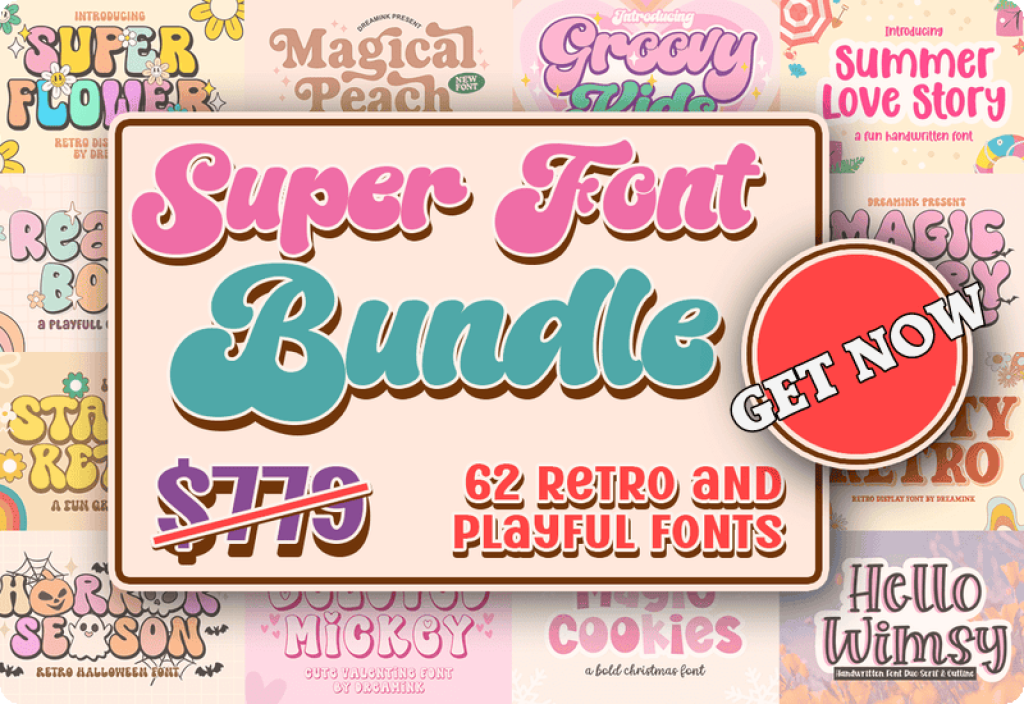
Introducing the Super Retro & Playful Font Bundle
Typography plays a vital role in every design project, adding character and style to your creations. The Super Retro & Playful Font Bundle by Dreamink (7ntypes) offers the perfect collection to infuse fun and creativity into any design. Valued at $779, this bundle is now available for free, and it includes a commercial license for versatile use in various projects. From t-shirts and mugs to book covers and greeting cards, this dynamic set of 62 fonts is your go-to resource for all things groovy and retro.
A Diverse Collection of Fonts
Vibrant Display Fonts
This bundle is packed with vibrant display fonts, perfect for making bold statements in your design work. These fonts will capture attention and convey your message with clarity and style.
- Super Flower Display Font: Ideal for floral-themed projects, this font adds a whimsical touch to designs.
- Horror Season Display Font: Perfect for spooky or Halloween-themed projects, creating an eerie yet playful vibe.
- Sunshine Notes Display Font: Brighten up any project with this cheerful font, great for uplifting messages and designs.
Retro and Groovy Styles
Take a trip back in time with fonts that exude retro flair. These fonts are ideal for nostalgic designs and projects that aim to evoke a sense of the past.
- Mashville Serif Font: Offers a classic serif style with a modern twist, suitable for headlines and titles.
- Trusty Retro Display Font: Perfect for vintage posters or retro-themed events, adding authenticity to your designs.
- Standy Retro Display Font: Evokes a retro feel, great for projects that aim to capture the essence of the ’70s and ’80s.
Fun and Playful Elements
Fonts that add a playful touch to your designs can make all the difference. This bundle includes a variety of options that are sure to make your projects stand out with personality and charm.
- Lovely Bougenville Script & Handwritten Font: Brings elegance and playfulness to invitations and personalized items.
- Groovy Kids Display Font: Perfect for children’s projects, adding fun and excitement to any design.
- Magic Cookies Display Font: Use this delightful font to add a sprinkle of magic to your designs.
High-Quality Craftsmanship by Dreamink (7ntypes)
Crafted by Dreamink (7ntypes), each font in this bundle is designed with precision and creativity, ensuring top-notch quality for your design needs. These fonts are not only visually appealing but also maintain their clarity and sharpness across mediums, whether displayed on a screen or in print.
Features and Benefits
Versatility Across Projects
The Super Retro & Playful Font Bundle caters to a variety of design needs, from personal crafts to professional projects. Whether you are designing merchandise, creating artistic invitations, or crafting visually appealing advertisements, this collection offers the versatility needed to meet any creative challenge.